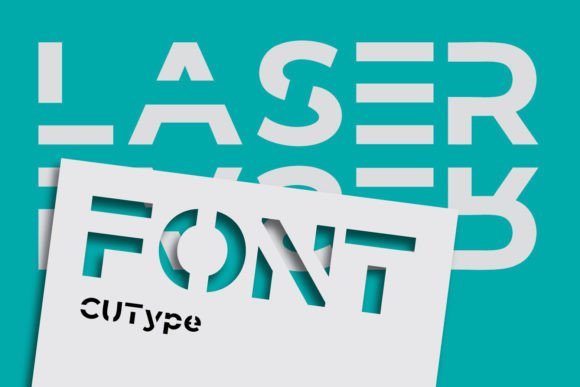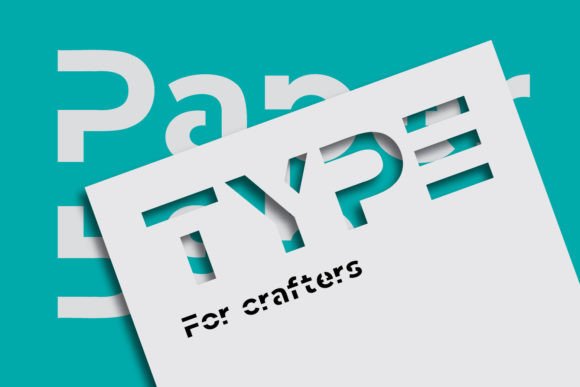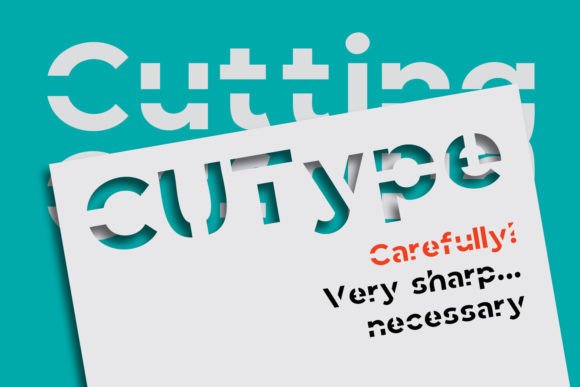
Introducing CUType Font: The Ultimate Choice for Laser and Paper Cutting
Are you a designer or crafter looking for a font that can help you create stunning and precise cut-out designs? Look no further than CUType, a specially designed font for laser and paper cutting. In this article, we’ll explore the features and benefits of CUType, and why it’s becoming a favorite among crafters and designers.
What is CUType Font?
CUType is a unique font designed specifically for cutting applications. Its bold and sturdy letters are perfect for creating signs, stencils, cards, and other craft projects. The font’s design ensures that it stays together well when cut, making it ideal for intricate designs and detailed work.
Key Features of CUType Font
- Bold and Easy to Cut Out: CUType’s bold letters are designed to be easy to cut out, making it perfect for laser and paper cutting applications.
- Smooth Edges and Clear Shapes: The font features smooth edges and clear shapes, ensuring a clean and precise cut every time.
- Strong and Durable: CUType is designed to stay together well when cut, making it perfect for intricate designs and detailed work.
Benefits of Using CUType Font
So why choose CUType for your cutting projects? Here are just a few benefits of using this versatile font:
- Perfect for Craft Projects: CUType is ideal for craft projects like signs, stencils, cards, and more.
- Easier to Cut: The font’s bold design makes it easier to cut out, reducing the risk of errors and mistakes.
- High-Quality Results: CUType ensures high-quality results, with smooth edges and clear shapes that make your projects stand out.
- Versatile: CUType can be used for a wide range of applications, from paper crafting to laser cutting and more.
- Choose the Right Size: Make sure to choose a size that’s suitable for your project. CUType looks great in large and small sizes, but make sure to test it out before cutting.
Tips and Inspiration for Using CUType
Need some inspiration for using CUType? Here are a few ideas to get you started:
- Custom Signs: Use CUType to create custom signs for parties, events, or businesses.
- Paper Crafts: CUType is perfect for paper crafts like cards, gift tags, and scrapbooking.
- Laser Cutting: Use CUType for laser cutting projects like custom decals, stencils, and more.
| Font Name | Cutype Font |
| Author | ochakov |
CUType is a versatile and practical font designed specifically for laser and paper cutting. Its bold and sturdy design makes it perfect for craft projects like signs, stencils, cards, and more. With its smooth edges and clear shapes, CUType ensures high-quality results that make your projects stand out. Whether you’re a designer or crafter, CUType is a great choice for anyone looking to create precise and beautiful cut-out designs.